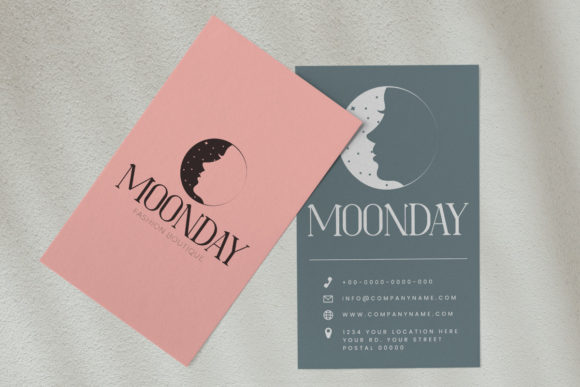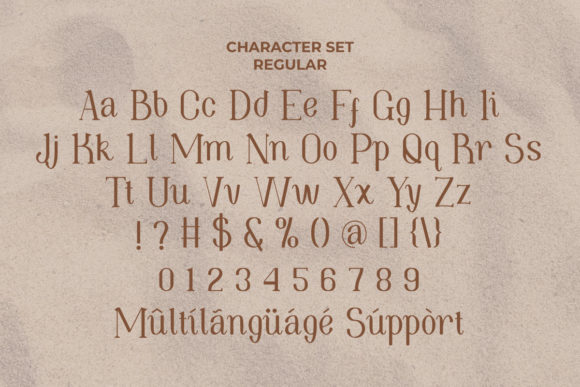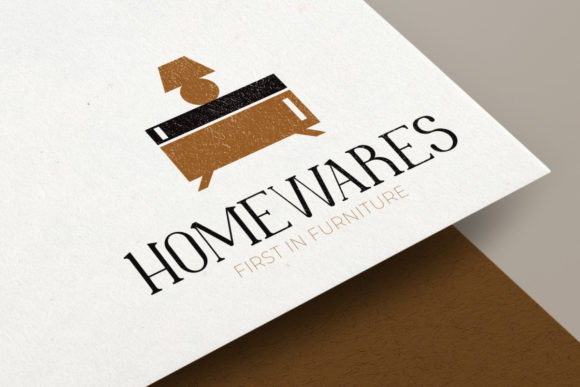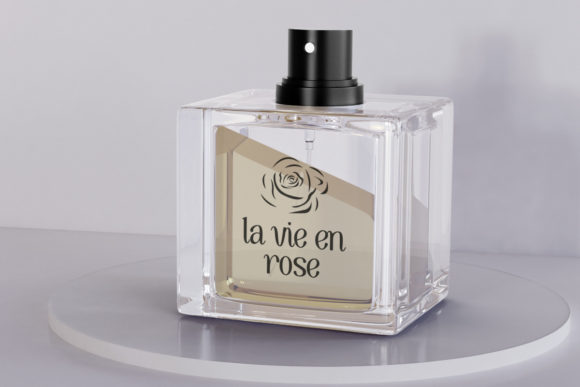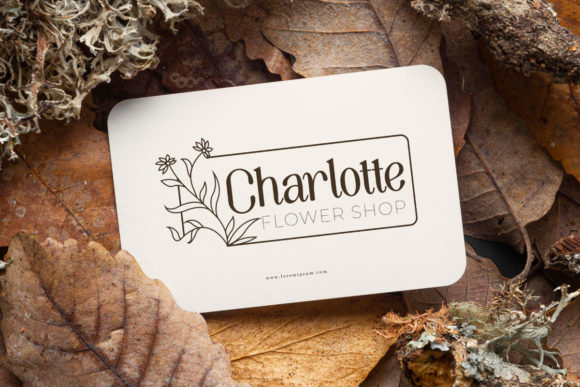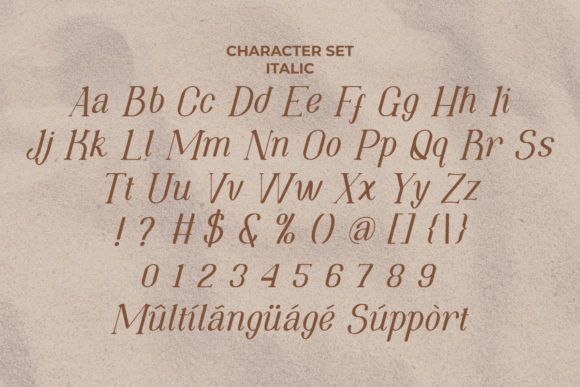
Introduction to Mazy Theory Font
Mazy Theory is a delicate and vintage styled serif font.
Fall for its ravishing style and use it to create gorgeous wedding invitations, beautiful stationary art, eye-catching social media posts, and much more .
Key Features of Mazy Theory Font